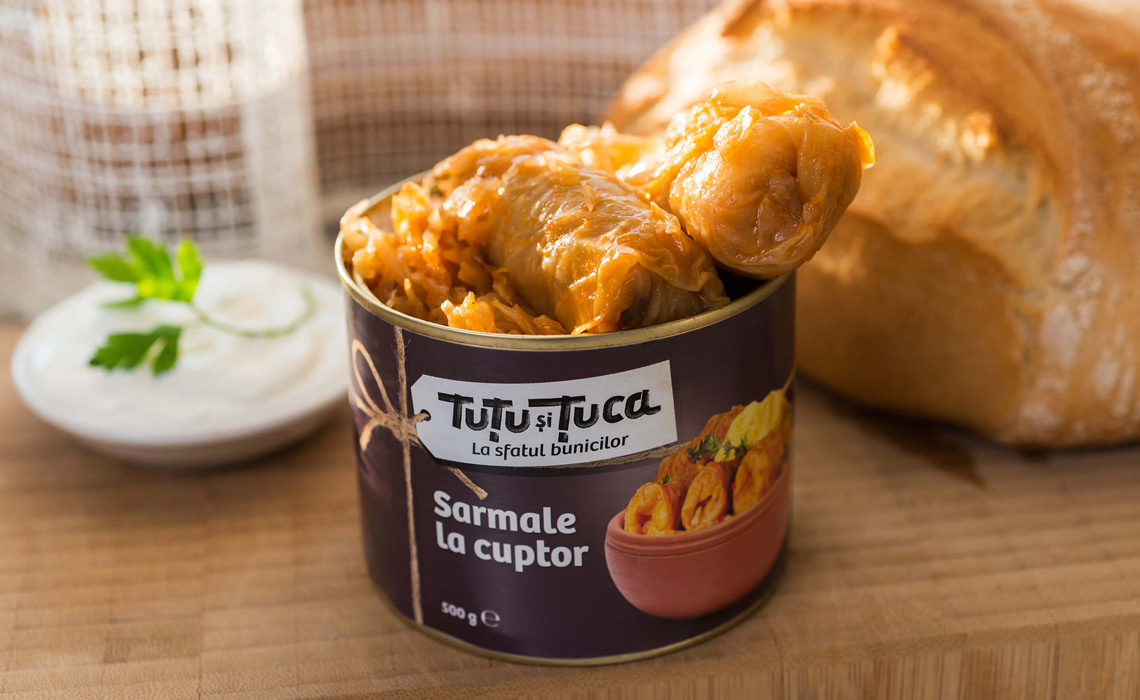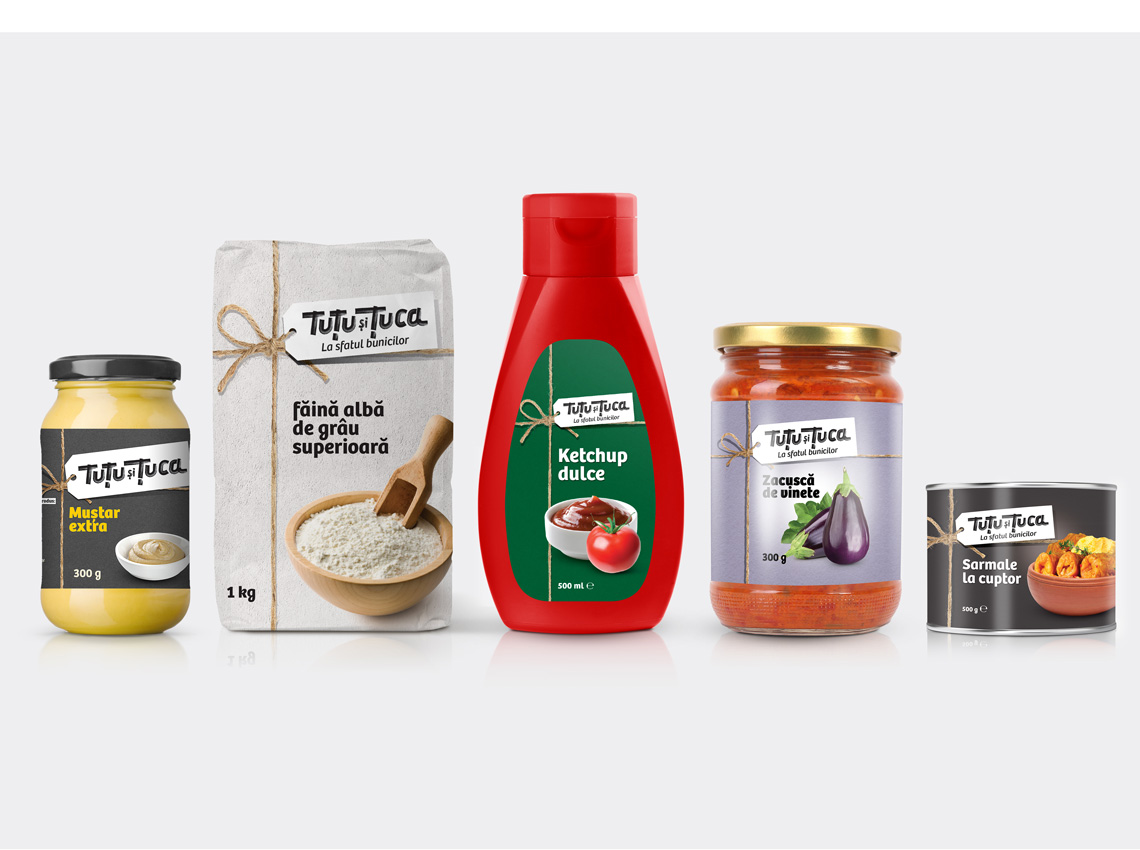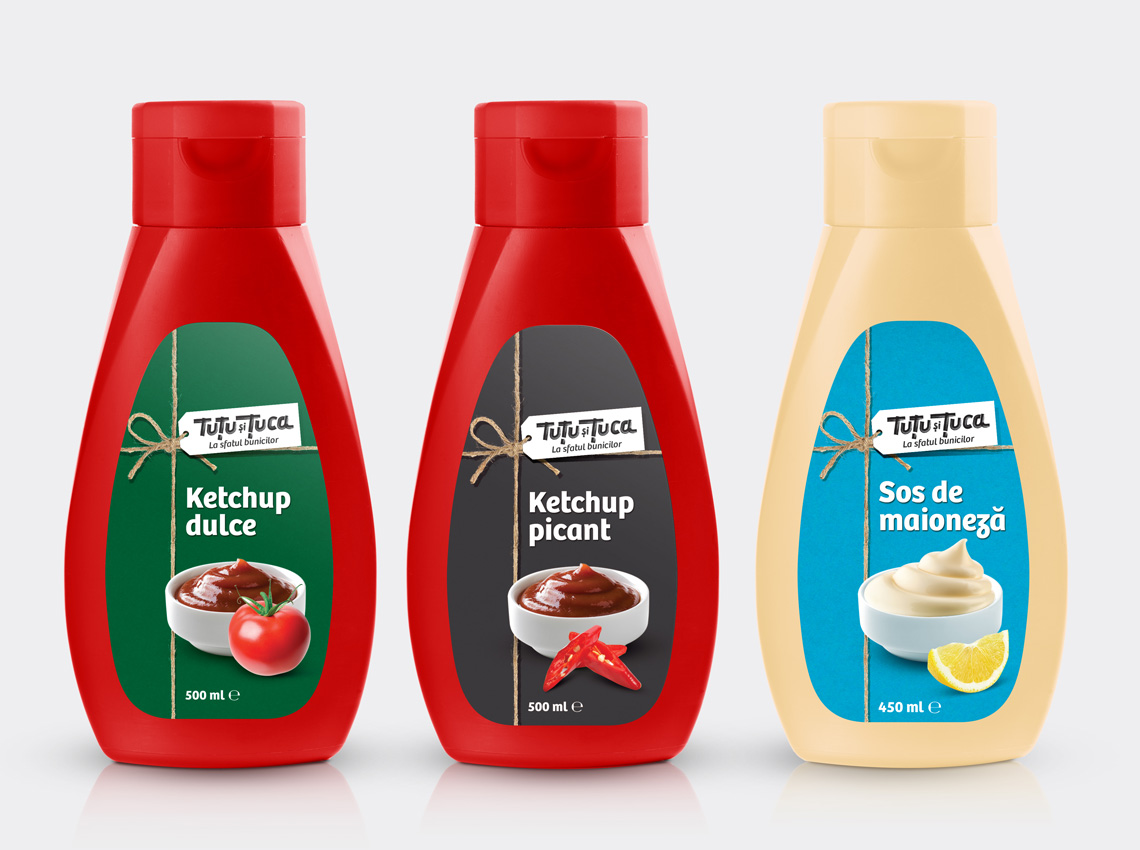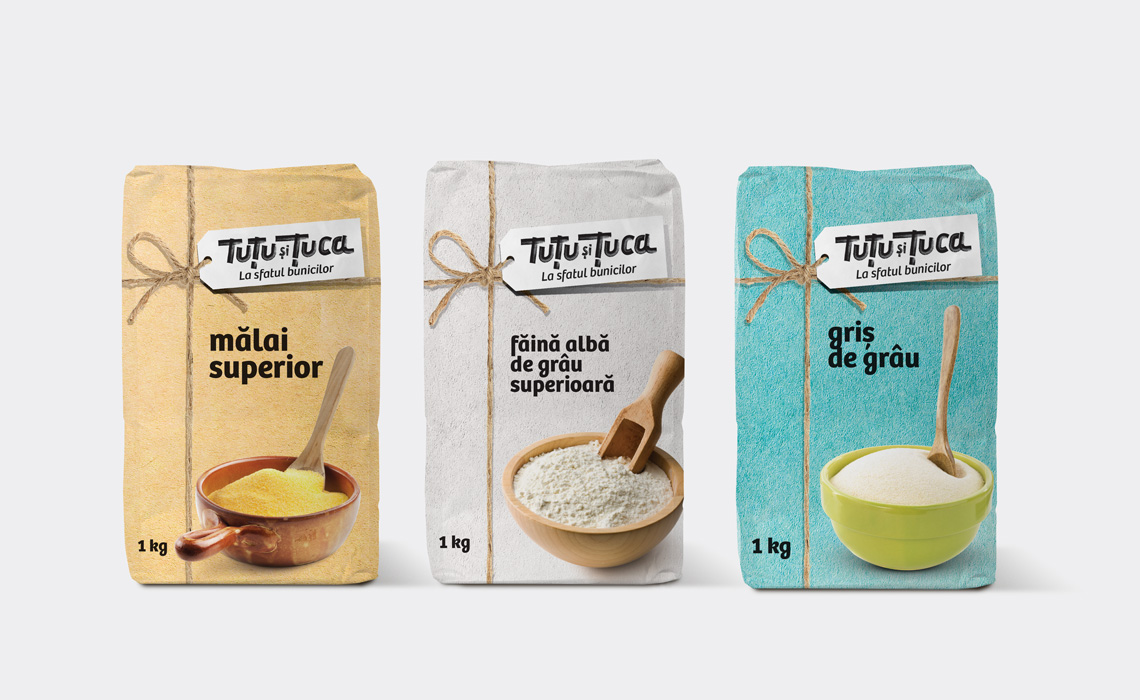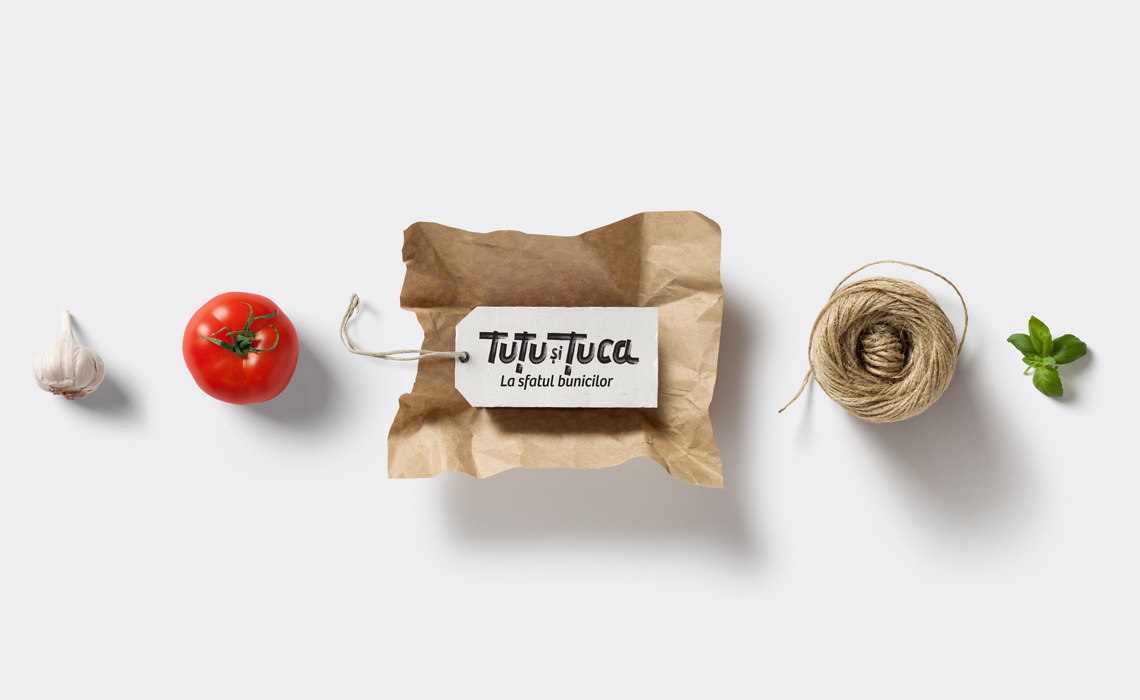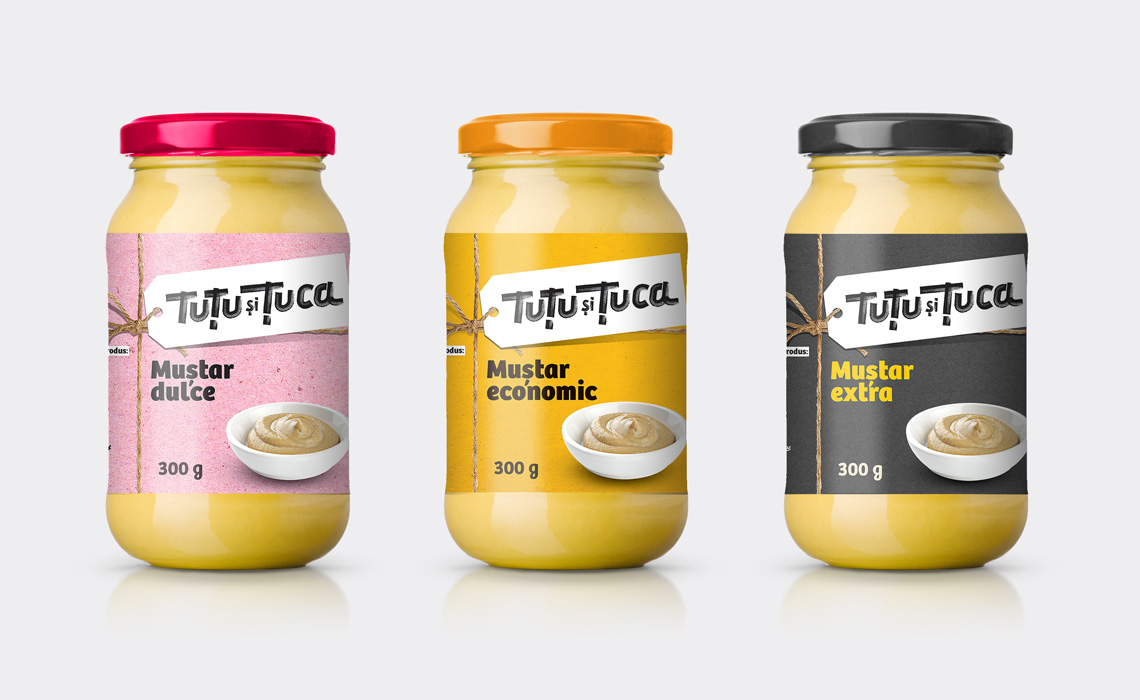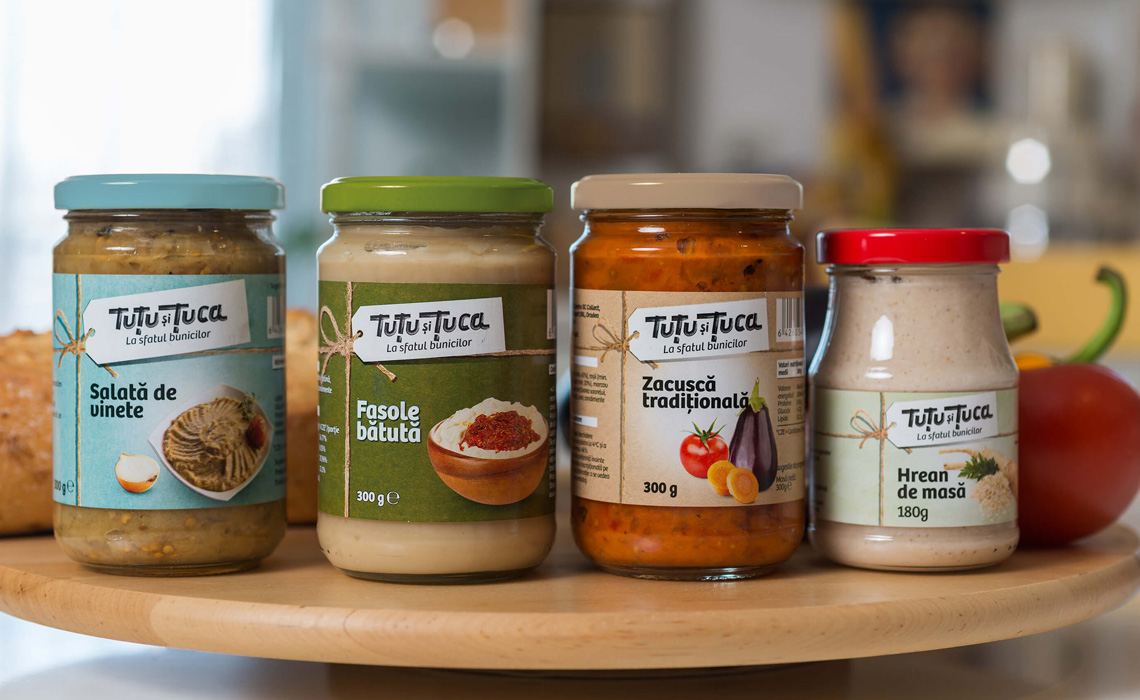
Tuțu and Țuca
Bree used on packaging and in the logotype of this Romanian food product series, Tuțu and Țuca, lending the brand an inviting and familiar note.
Tuțu and Țuca is a series of staple food products, such as mustard, flour, spreads, and the like. The branding is reminiscent of packages that loving relatives would have sent in earlier times to Romanian emigrants in Western Europe.
Adriana Liute, managing partner at Storience brand agency comments on why our Bree font was selected: “We chose Bree because it’s a font that harmoniously combines legibility with strong personality and aesthetics. In our project’s case, the font brought a warm, friendly, familiar, and organic character to the packaging. This brand’s story is ‘traditional products that Romanian grandparents would send to a far-away, but dear, relative’, so there was a good overlap between the font and our brand story.